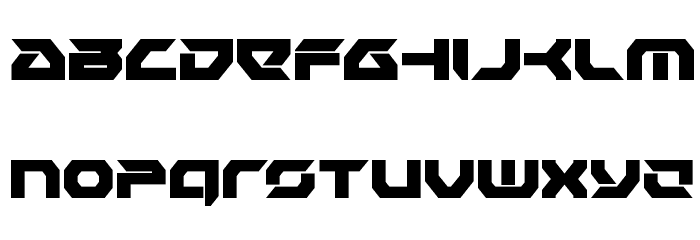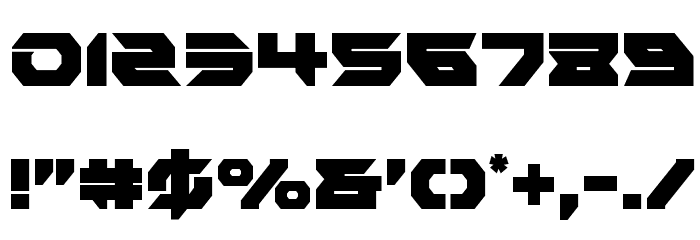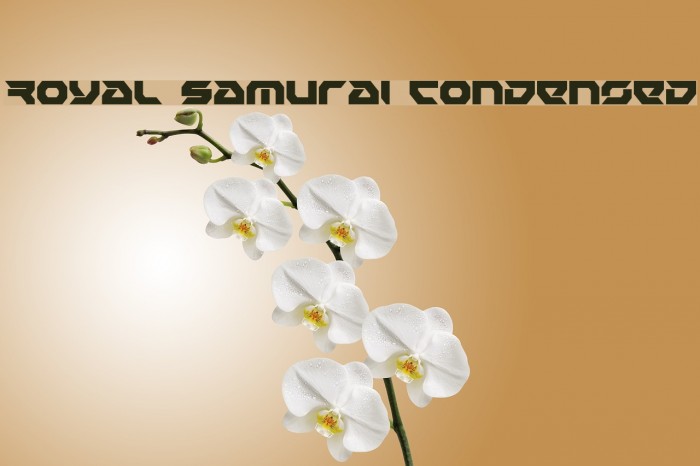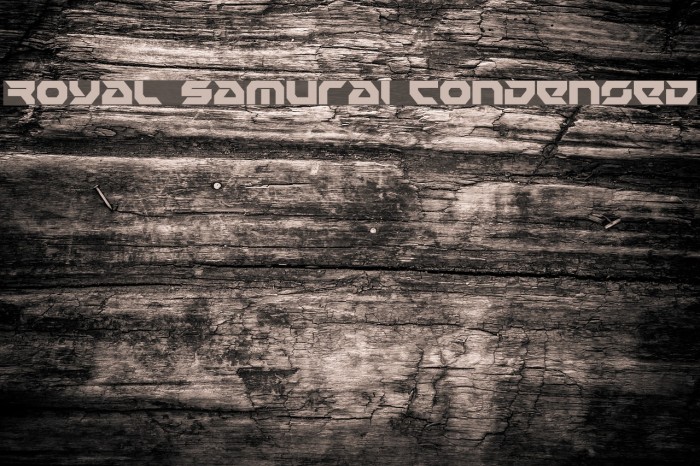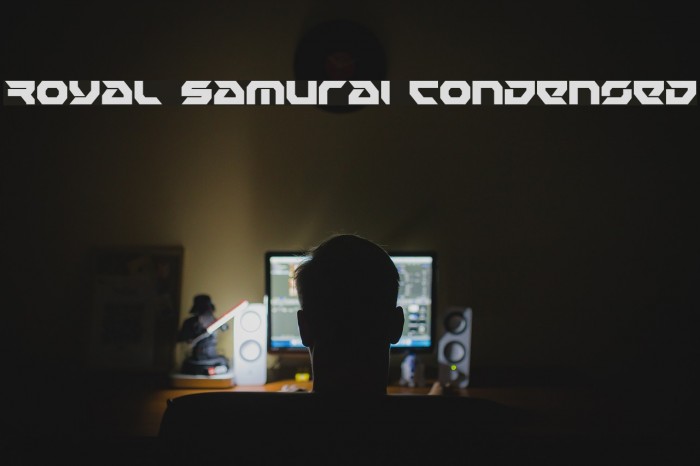
Royal Samurai Condensed Font
This font features a bold and striking design with a futuristic and angular aesthetic. The characters are constructed with sharp, geometric shapes that give a sense of strength and modernity. The uppercase and lowercase letters maintain a consistent style, with each character exhibiting a unique, edgy form. The numbers and special characters follow the same design principles, ensuring uniformity across the font. The condensed width of the characters adds to the compact and impactful appearance, making it ideal for attention-grabbing headlines or titles.
A bold, angular, and futuristic font with a condensed and striking design.